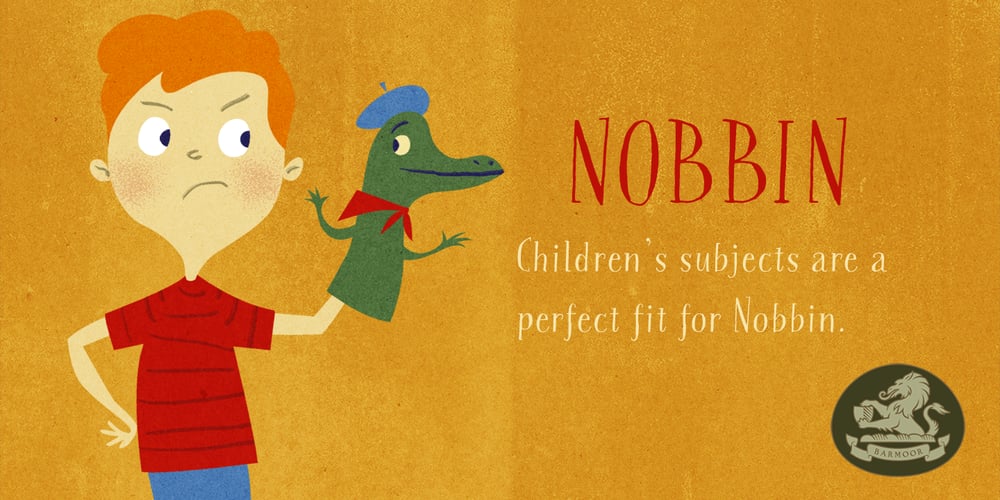
Nobbin Font Family was designed by Tracy Sabin and published by Barmoor Foundry. Nobbin contains 1 styles and family package options. Nobbin was designed to be used in a children’s picture book called “Nothing to do…” written and illustrated by Tracy Sabin.